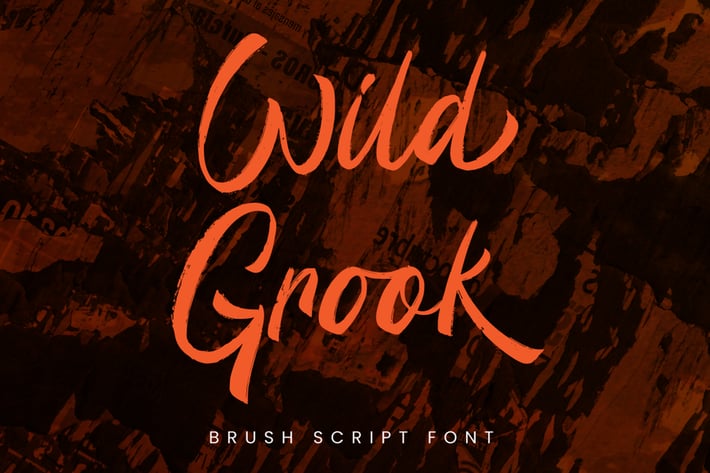
Wild Grook - Brush Font
Introducing Wild Grook - Inspired by urban typeface with texture style,
Wild Grook has strong character perfect for urban street design.
Wild Grook is perfect for branding, logo, invitation, stationery, product packaging, merchandise, monogram, blog design, game titles, cute style design, Book/Cover Title and more.
- Ending swash